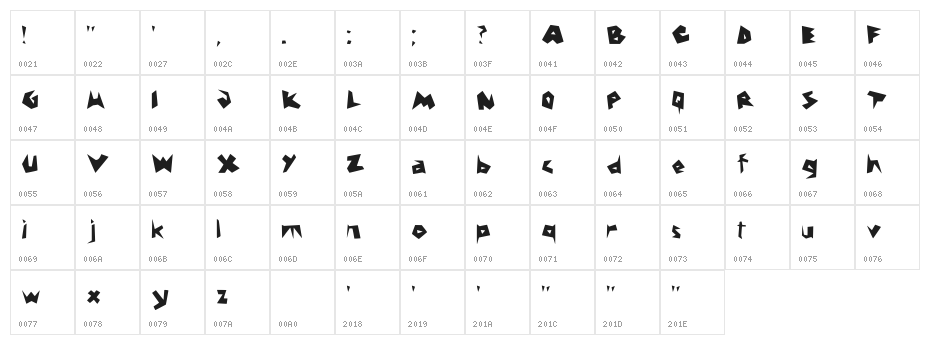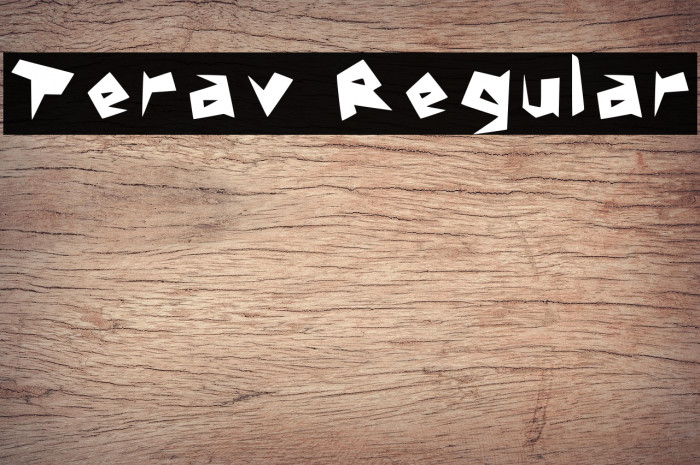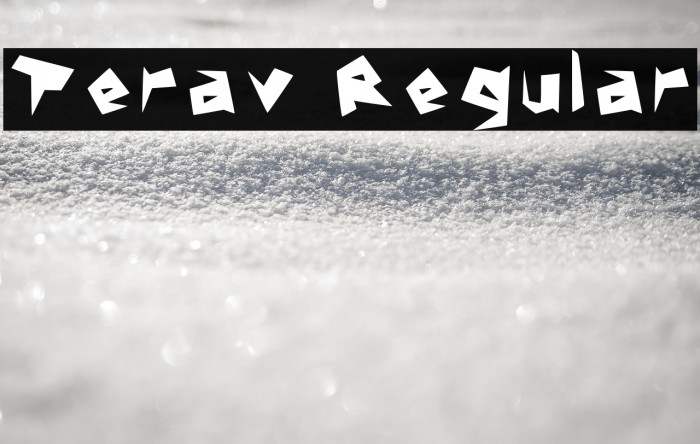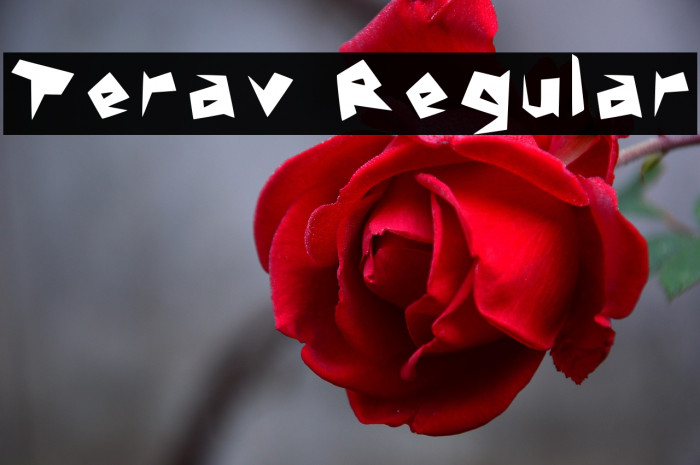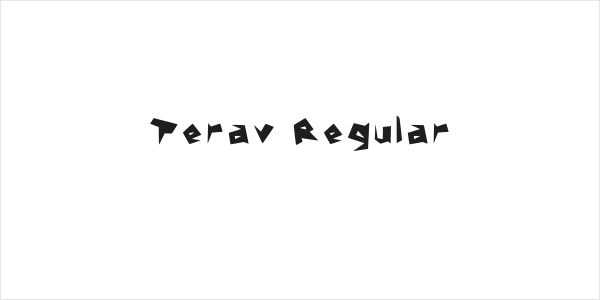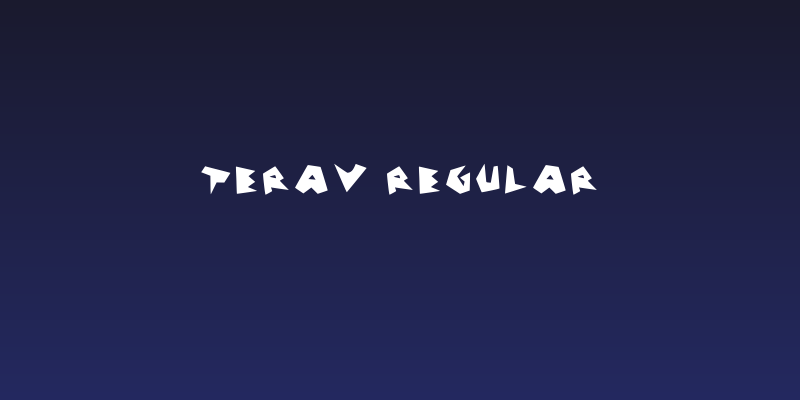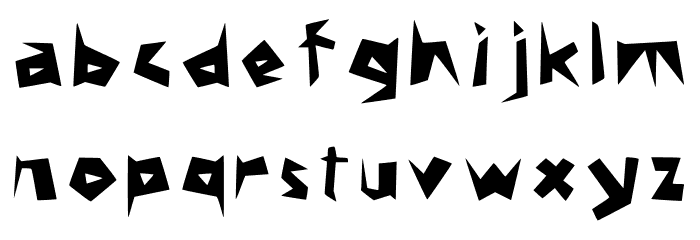
Terav Regular Font
Terav Regular Description
This font features a bold and edgy design with sharp, angular lines and a distinct geometric style. Each character is crafted with a unique, jagged appearance, giving it a dynamic and energetic feel. The uppercase and lowercase letters maintain a consistent aesthetic, while the numbers and special characters complement the overall design. The font's striking appearance makes it ideal for projects that require a bold statement or a modern, unconventional look.
Proposed ProjectsPerfect for album covers, posters, video game titles, and branding that requires a modern, edgy look.